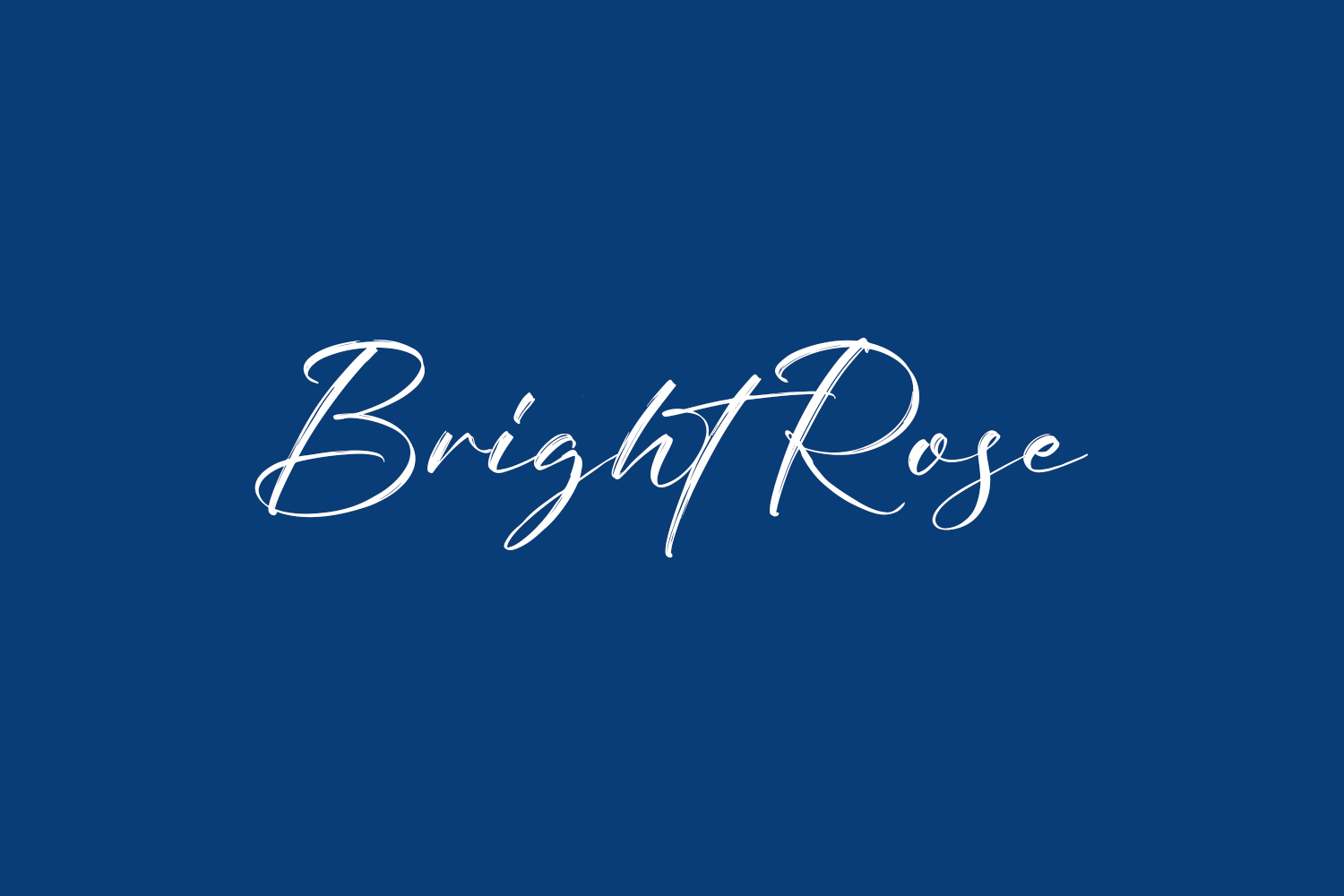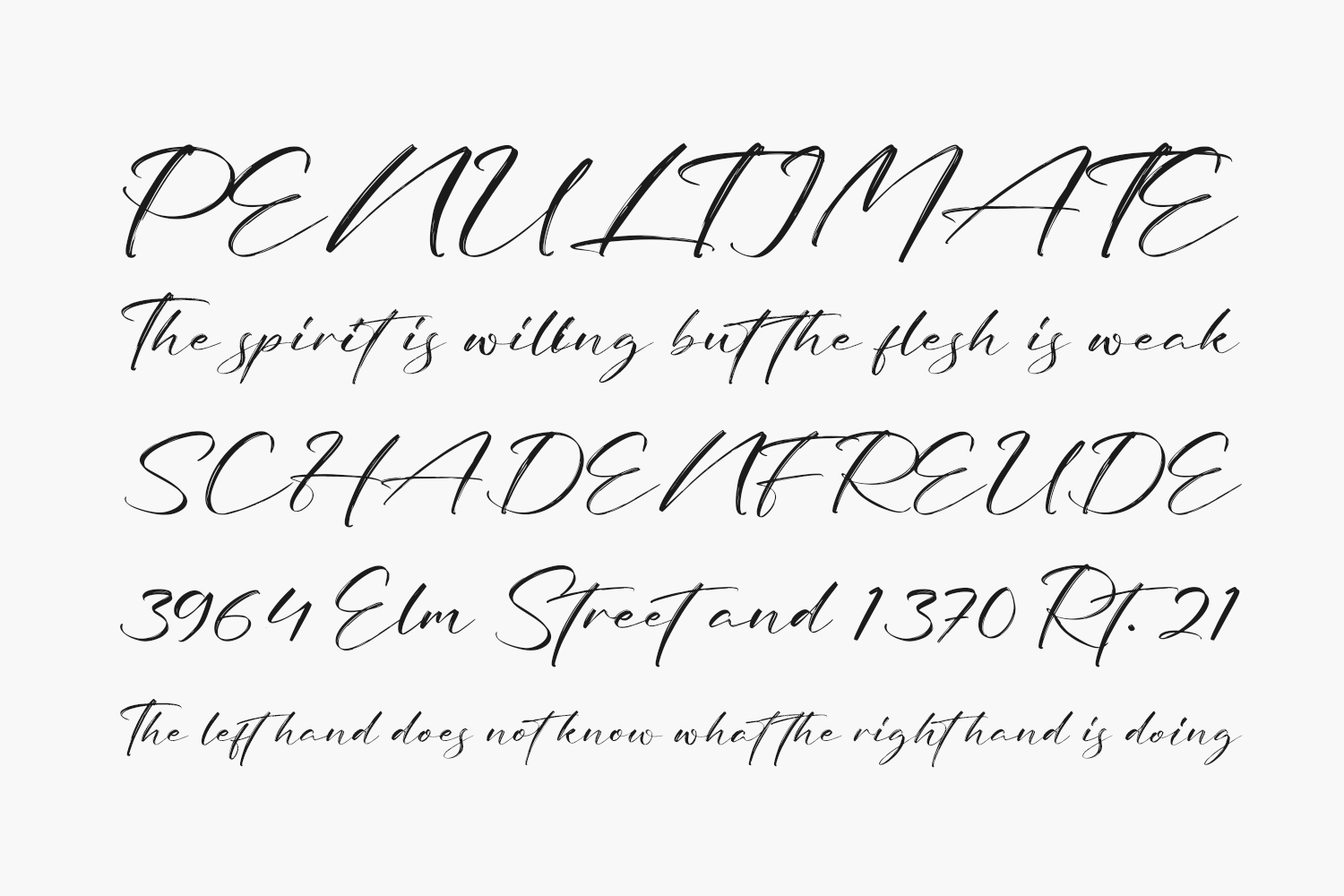
Bright Rose Free Font is an exquisite and dainty calligraphy font featuring characters that gracefully sway along the baseline. Infuse a touch of opulence into your design endeavors with this typeface of elegance. Bright Rose Free Font is free for personal use only. Please purchase the full version for commercial use.
Designed by Letterena Studios